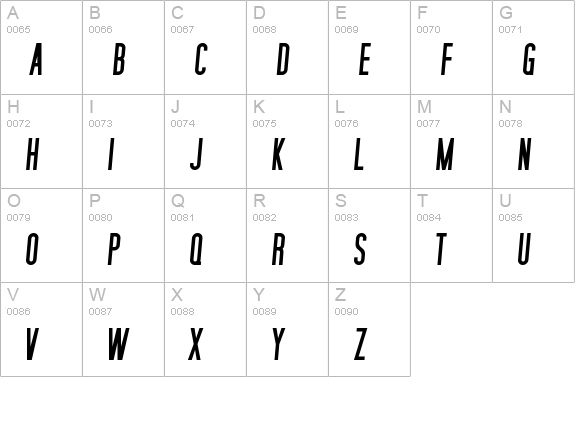
SF Movie Poster Bold Italic Font Details
SF Movie Poster Bold Italic is a strong, high-contrast, italic variant in the SF typeface family \xE2\x80\x94 well suited to headlines, attention-grabbing titles, and strong calls-to-action.
Introducing SF Movie Poster Bold Italic, a captivating and futuristic font that will transport your designs into the realms of science fiction. This typeface is the perfect choice for all your movie poster needs, adding an extra level of excitement and intrigue to your visual storytelling. With its bold and italicized characters, SF Movie Poster exudes a sense of power and intensity, capturing the essence of the thrilling and larger-than-life worlds found in sci-fi films. Its sleek and modern design is reminiscent of the iconic typography seen in some of the most iconic movie posters of all time. What sets SF Movie Poster Bold Italic apart is not only its stunning aesthetics but also its versatility. This font is ideal for a wide range of design projects, including movie posters, book covers, video game graphics, and even branding materials. It effortlessly combines a sense of adventure and sophistication, making it a standout choice for any creative endeavor. And the best part is, SF Movie Poster Bold Italic is freely available to download at FontsMarket.com. This means that you can easily acquire this captivating typeface without any cost, allowing you to unleash your creativity without any constraints. Its accessibility makes it a valuable asset for both professional designers and enthusiasts alike. So, whether you are a graphic designer looking to elevate your sci-fi projects or an avid fan of the genre seeking to create your own captivating visuals, SF Movie Poster Bold Italic is the font that will take your designs to new heights. Download it for free at FontsMarket.com and prepare to embark on a thrilling typographic journey like no other.